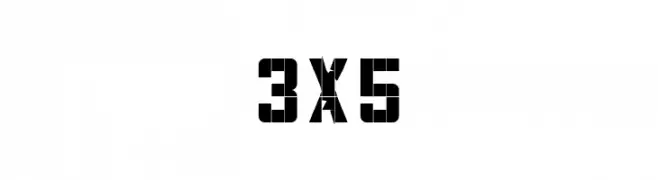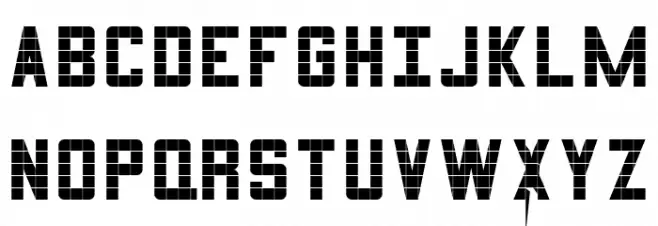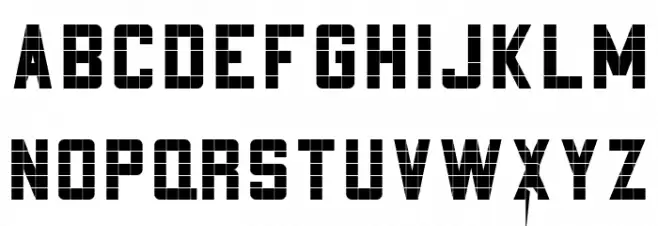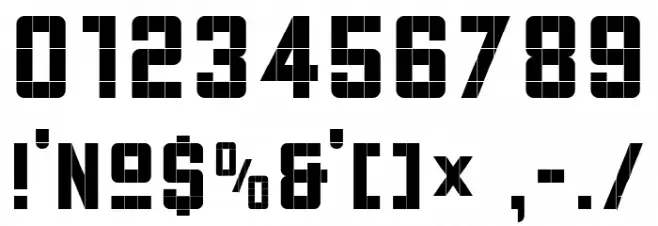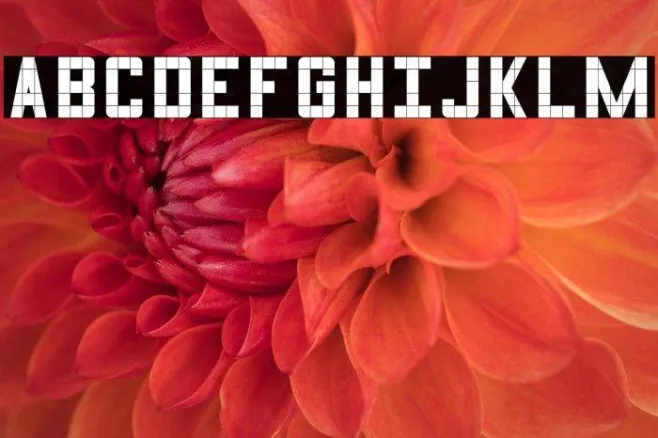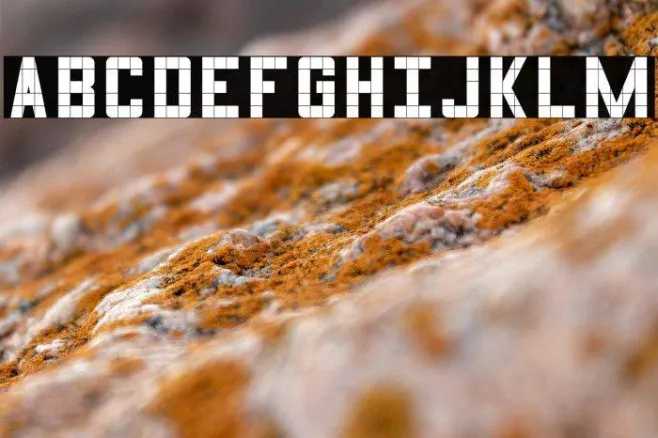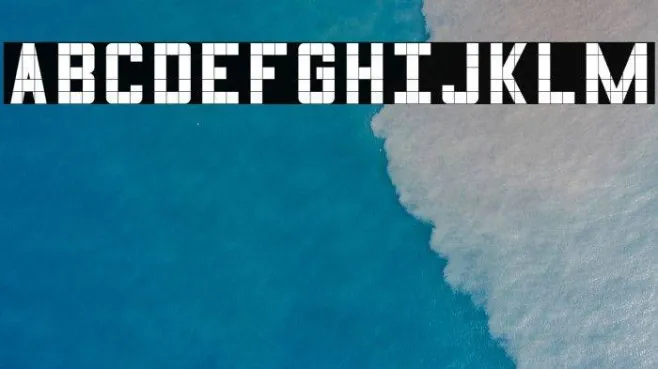
3x5 Font
3x5 (version 2.01) by Keith Bates k-type.com © 2002, 2004 Based on the lettering used for art folders at Joseph Eastham High School. In memory of Tony Cavanagh, inspirational art teacher.